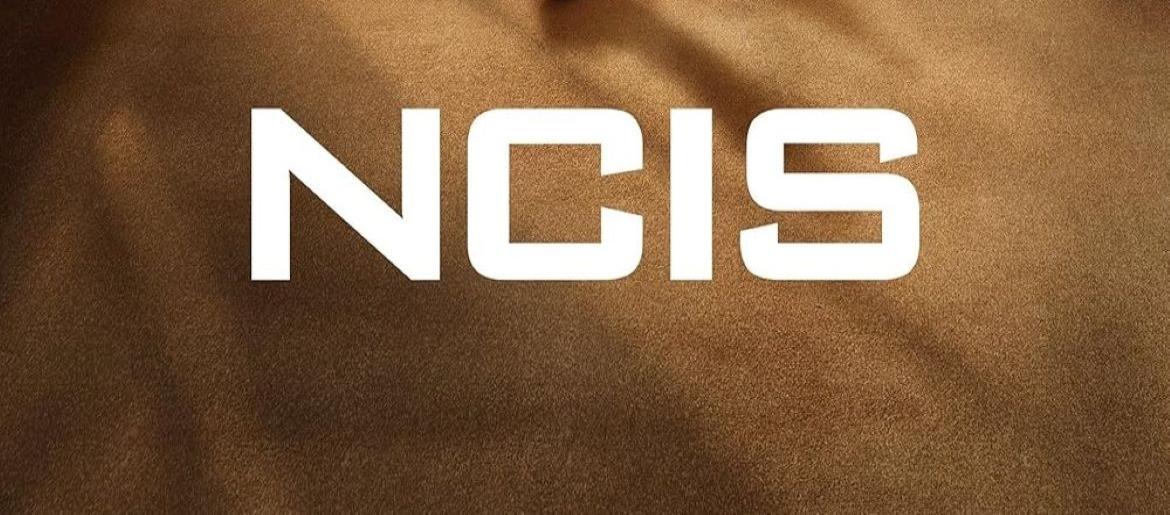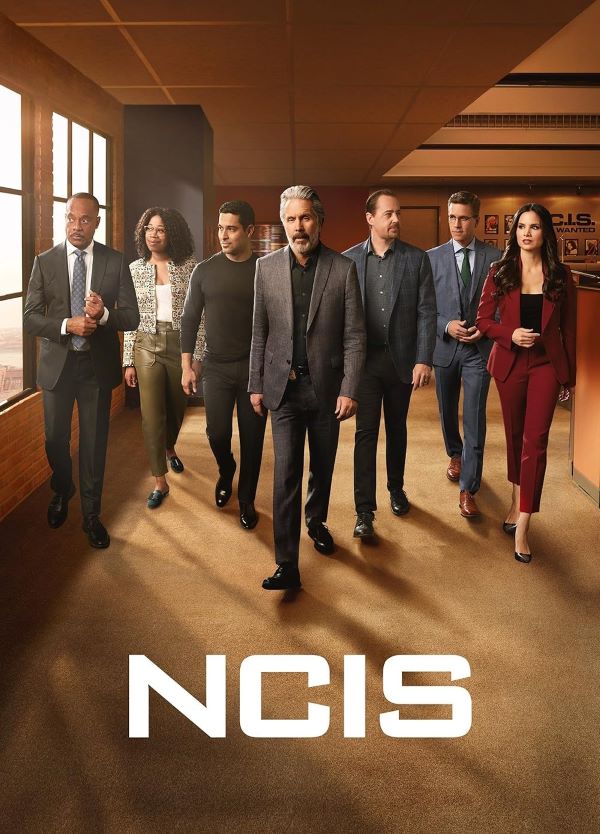
NCIS Font
What Font is NCIS?
The NCIS font is most likely a combination of Bank Gothic, Eurostile Extended, and Gamecuben. While Bank Gothic and Eurostile Extended are premium fonts, we’ve found that Gamecuben designed by Bleutuna, a free alternative, closely resembles the show’s distinctive typeface. Designed by Bleutuna, Gamecuben is a bold, all-caps font with a tech-inspired aesthetic, making it a suitable choice for replicating the NCIS logo’s look.
About NCIS
NCIS (Naval Criminal Investigative Service) is an American television series that premiered in 2003. The show follows a team of special agents from the NCIS, a federal law enforcement agency that investigates crimes involving the U.S. Navy and Marine Corps. Led by Special Agent Leroy Jethro Gibbs, portrayed by Mark Harmon, the team tackles a variety of cases, combining elements of military protocol with criminal investigation. Known for its compelling characters and intricate storylines, NCIS has become one of the longest-running scripted primetime television series in the United States.